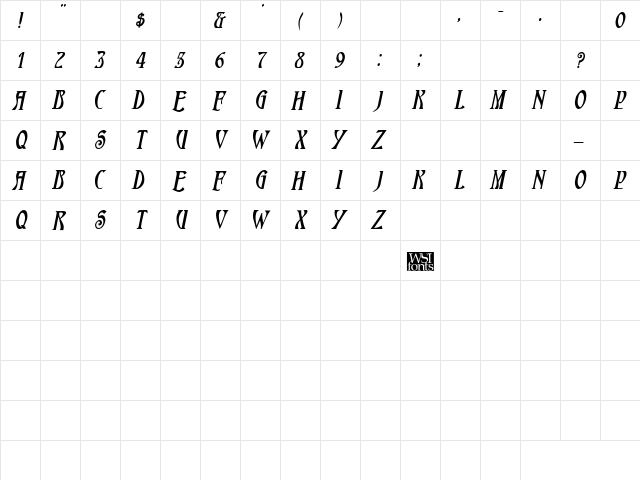
HardinCaps BoldItalic
Design Context for HardinCaps Typeface
HardinCaps takes a measured approach to typography — its balanced proportions and neutral character make it a reliable workhorse for both digital and print work. Its italic angle brings a sense of urgency and motion to the letterforms. The heavy weight commands attention and anchors typographic hierarchies.
Pro Tip: Use HardinCaps for emphasis, pull quotes, and subheadings where its slanted energy can add rhythm to the layout.